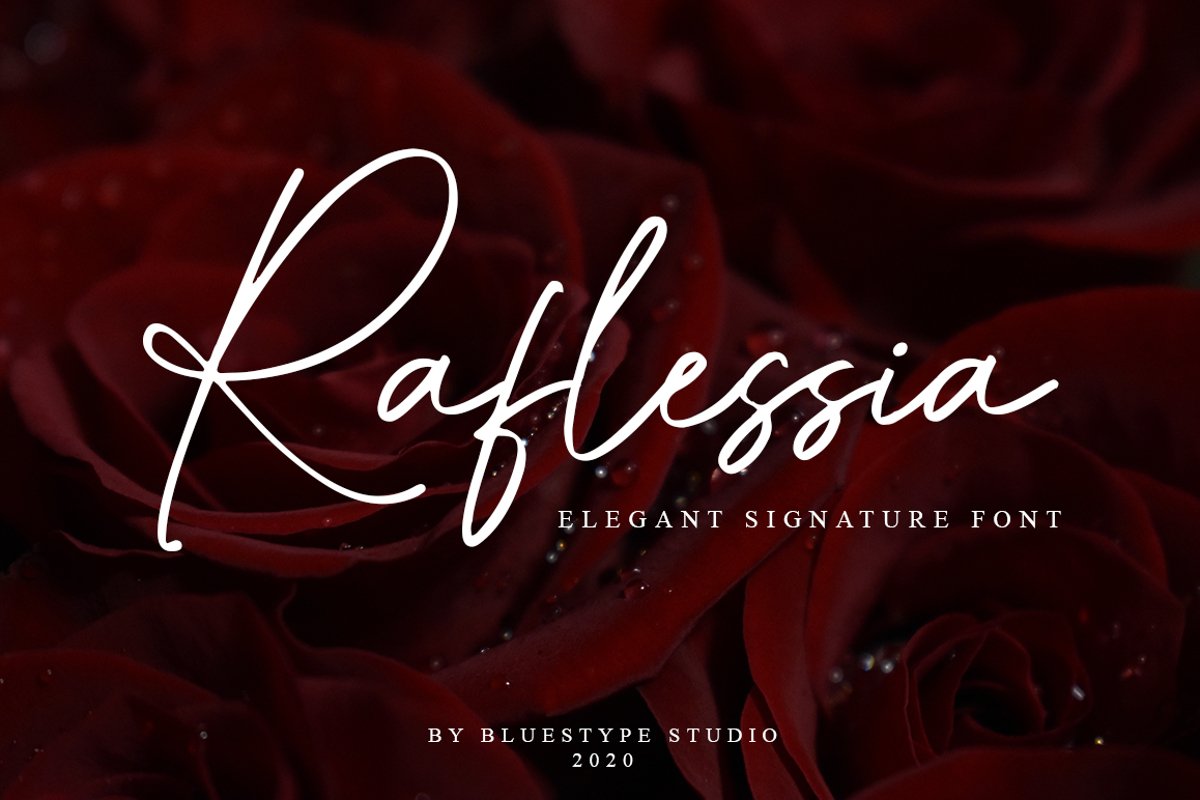
Raflessia - Elegant Signature Font
Raflessia
This is our newest product called Raflessia. Raflessia  is a stunning signature font with a cool and luxury twist. Get inspired by its modern simplicity!
This font is suitable for use on business cards, weddings, t-shirt designs, logos, magazines, quotes, fashion, watermarks, invitations, signatures.
- Ligature
- Swash
- Support Multilingual